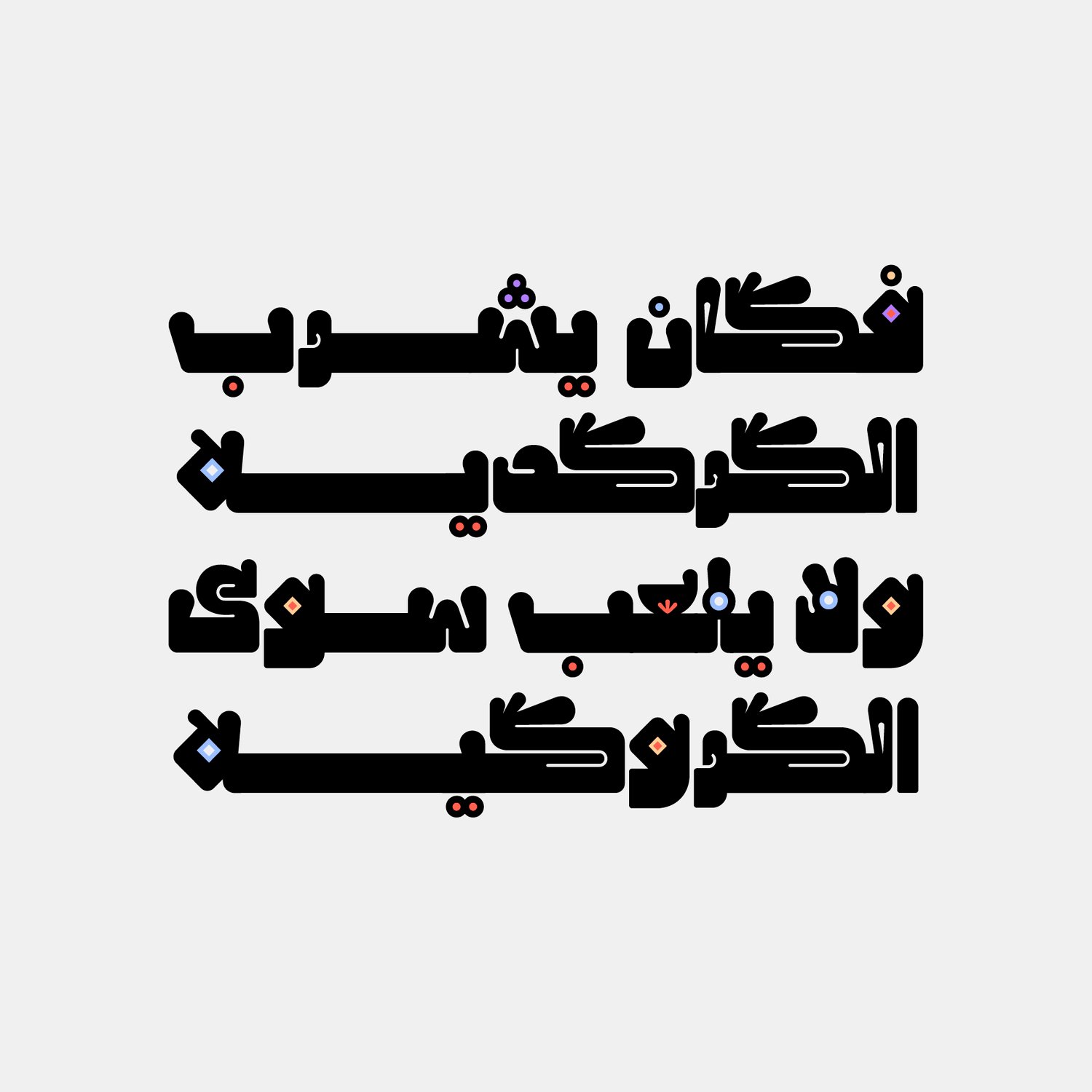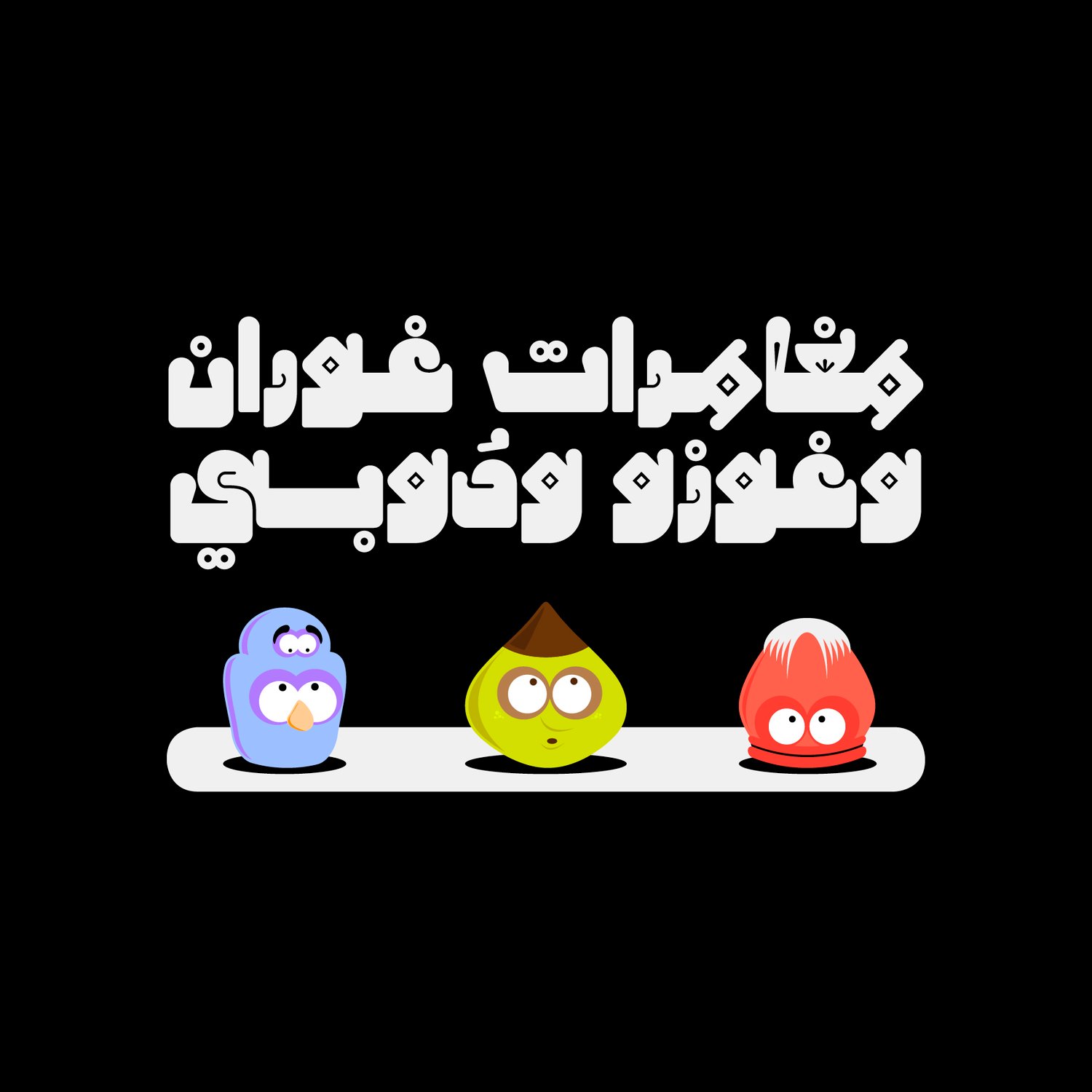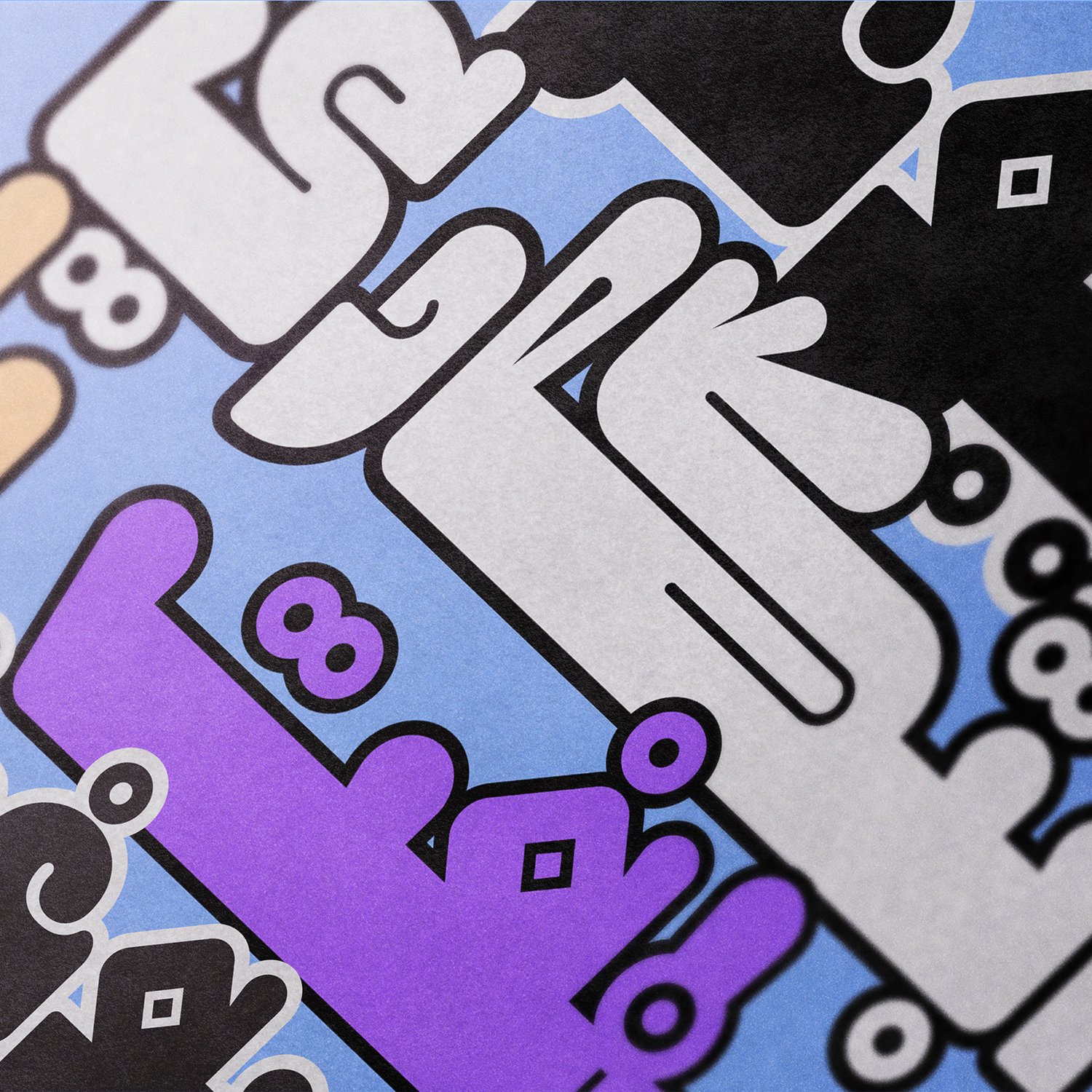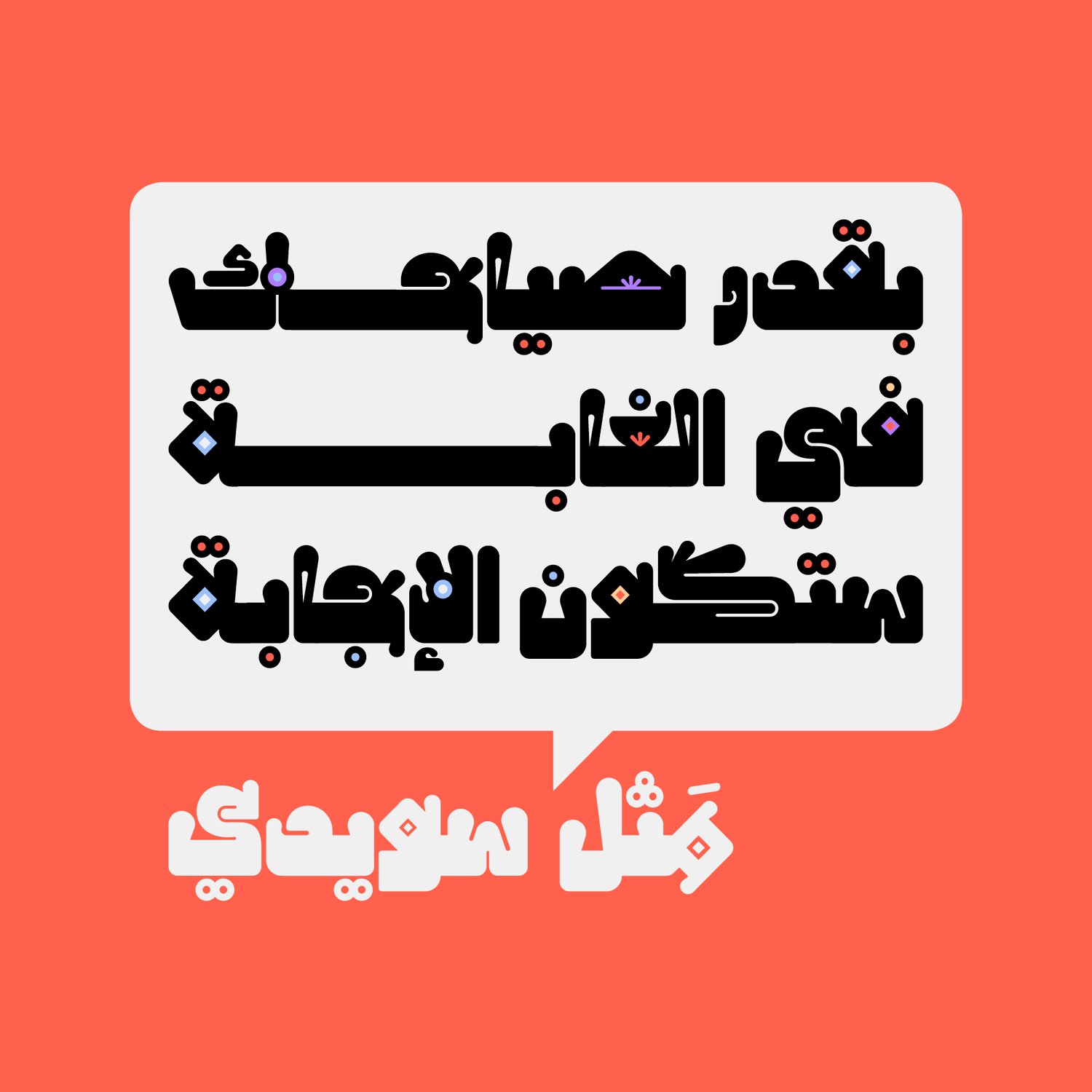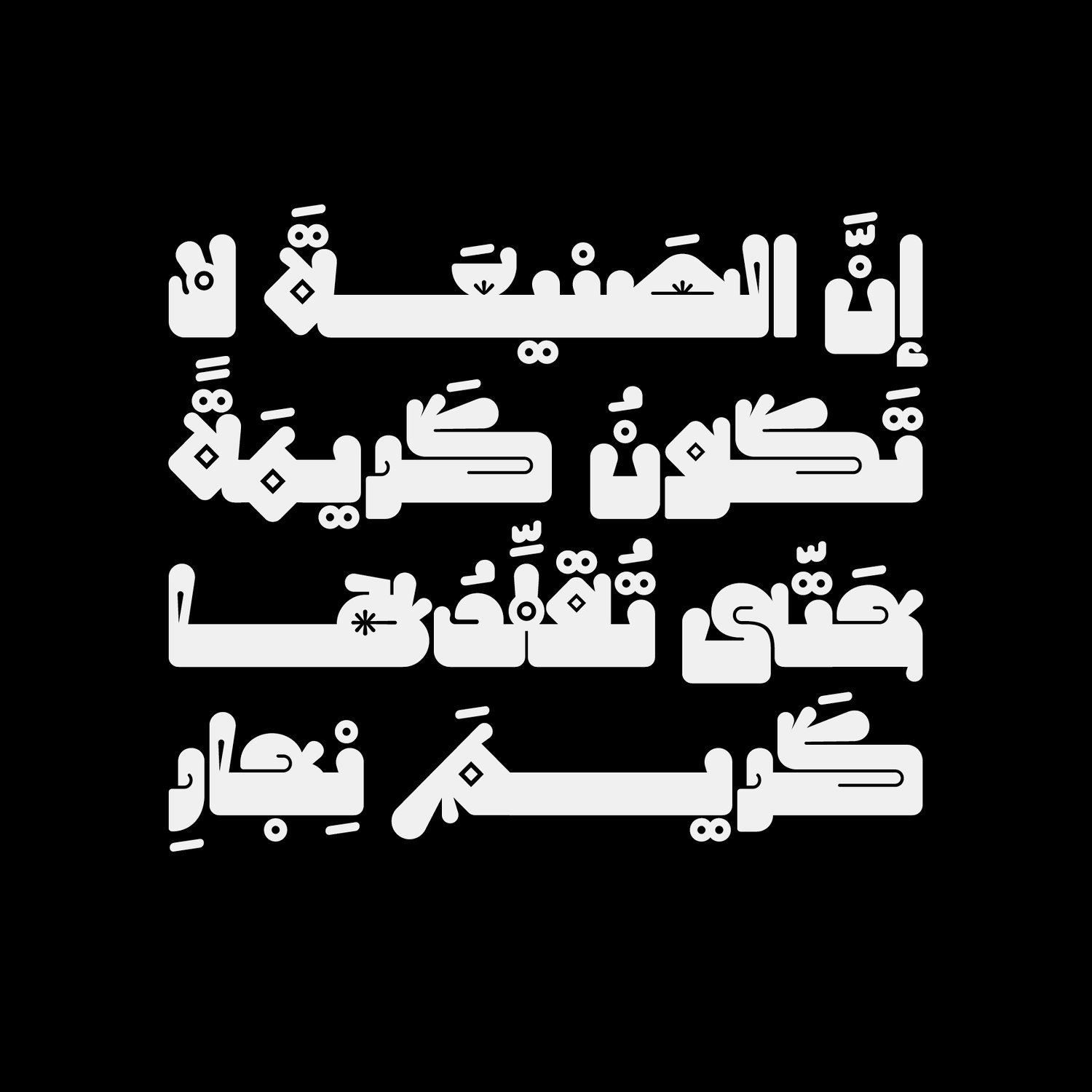
Hamhamah - Arabic Color Font
Hamhamah (the Arabic for 'Murmur') is an Arabic display font that features heavy letterform design with a unique comic structure. Hamhamah is a color font (SVG-TTF) which also comes along with a regular black font (OTF). The font is suitable for all modern designs including web, print and mobile applications. It supports Windows (10 and above), and macOS (High Sierra and above).